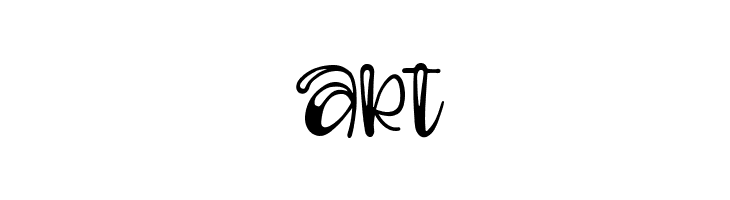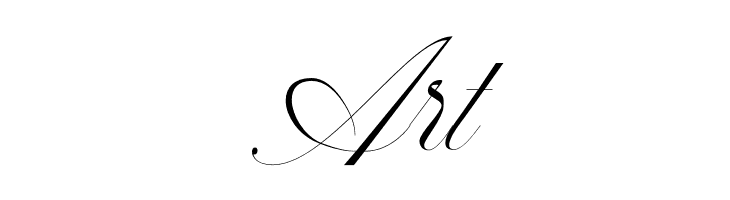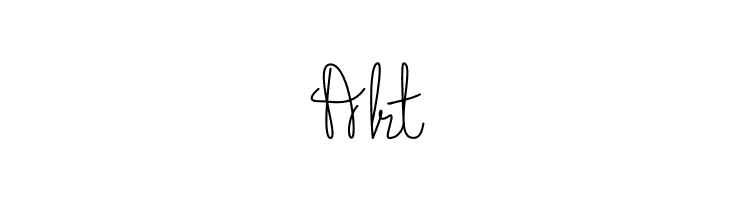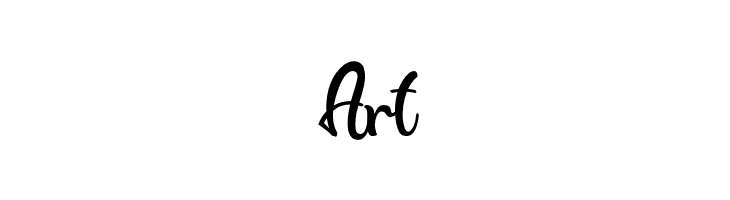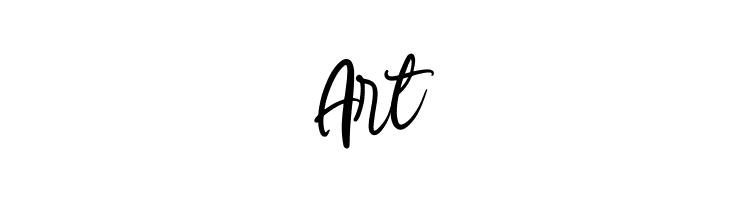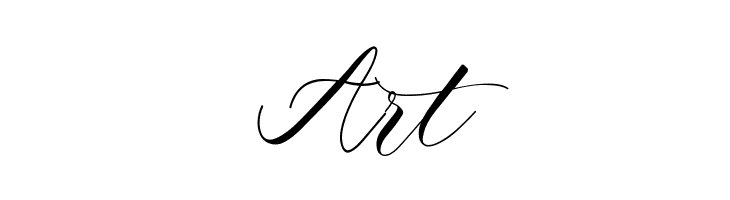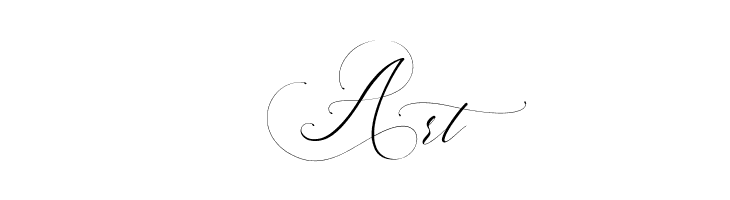
A playful, bold script font with a handwritten feel.
An elegant, flowing script font with ornate uppercase and graceful lowercase letters.
An elegant script font with intricate flourishes and a refined, flowing style.
An elegant script font with graceful curves and delicate strokes, perfect for sophisticated designs.
Playful handwritten font with a casual style.
An elegant, flowing script font with high contrast and modern appeal.
A whimsical and artistic script font with interconnected loops and curves.
A lively, handwritten cursive font with dynamic strokes and a playful style.
An artistic and decorative script font with fluid, cursive strokes.
An elegant cursive script font with flowing curves and artistic flourishes.